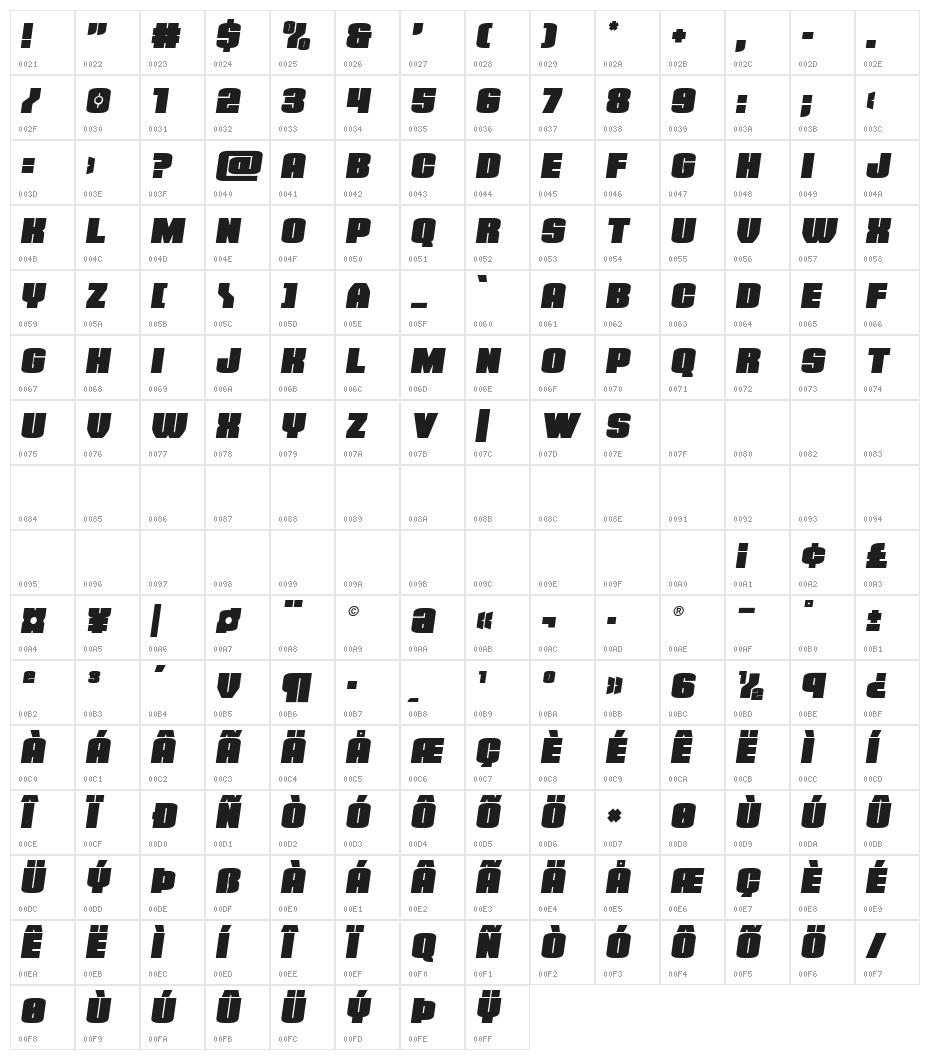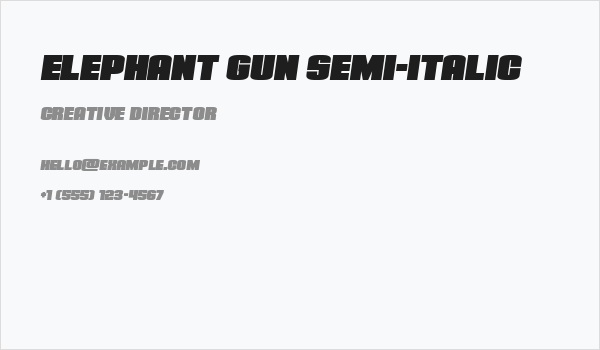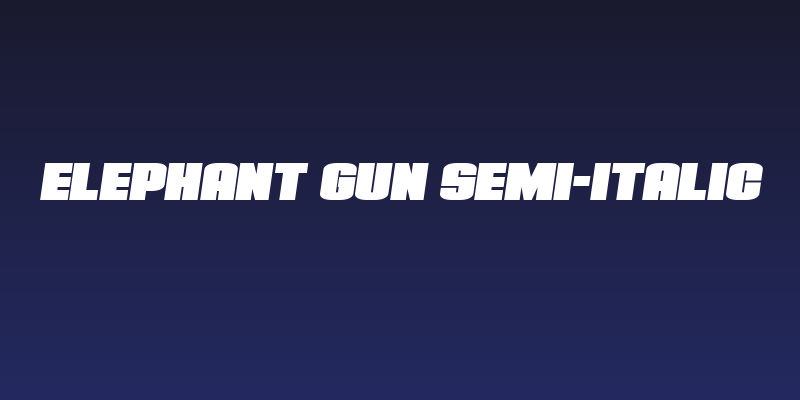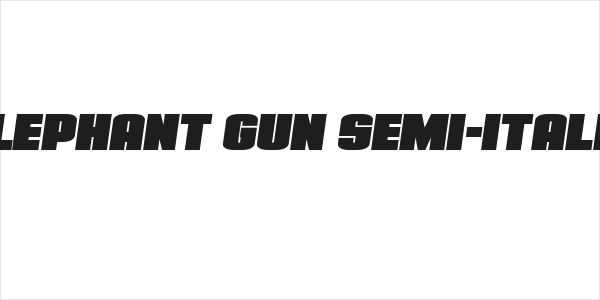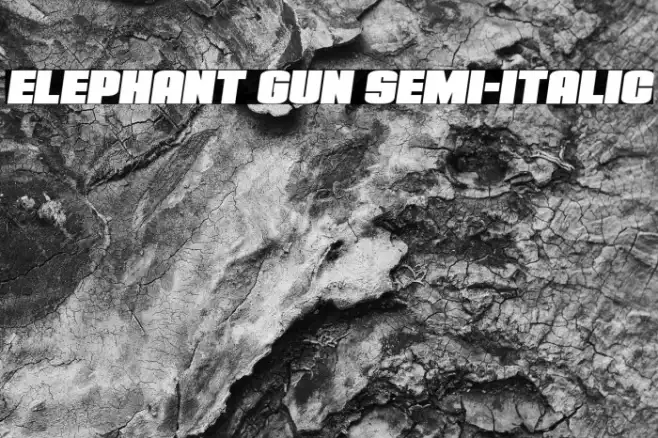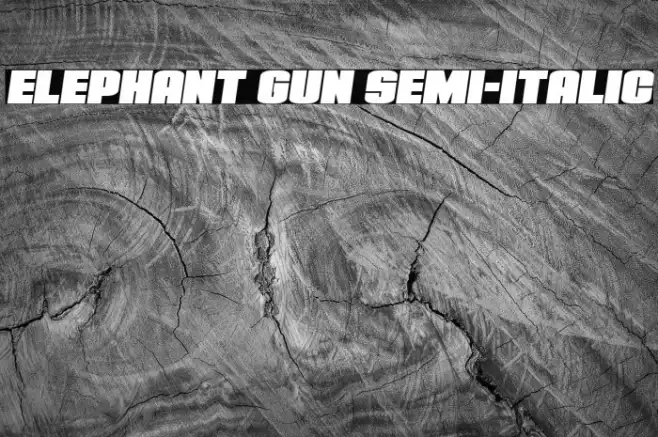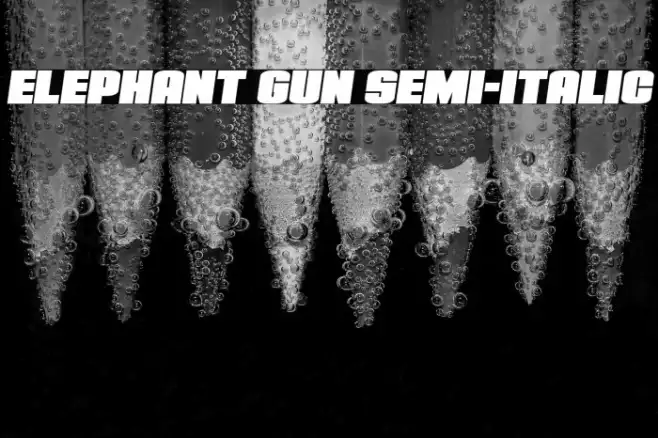
Elephant Gun Semi-Italic Font
Elephant Gun Semi-Italic Description
This font exhibits a bold and dynamic presence with its thick, block-like characters that have a slight forward slant, giving it a semi-italic appearance. The uppercase and lowercase letters maintain a consistent weight, contributing to a strong visual impact. The numbers and special characters follow the same robust style, ensuring uniformity across all glyphs. The font's design is characterized by its wide, expansive letterforms that convey a sense of power and assertiveness. The overall style is modern and assertive, making it suitable for projects that require a bold statement.
| Proposed Projects | Ideal for headlines, posters, branding, and any design that requires a strong, impactful typeface. |